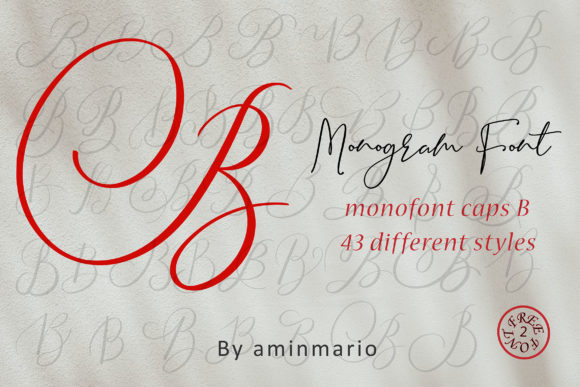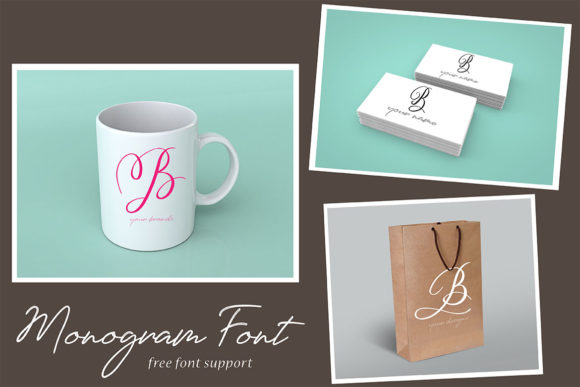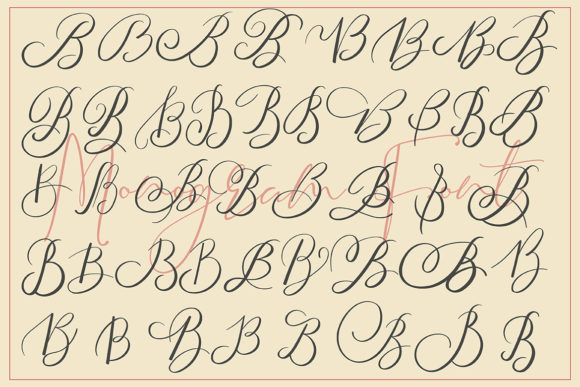
Monogram B | Monofont Caps B Font
This MONOGRAM is natural handwriting of capital B with 36 different styles.
This is not for writing words or sentences, but for monograms. Bonus 2 Font that contains the uppercase and lowercase to support it.